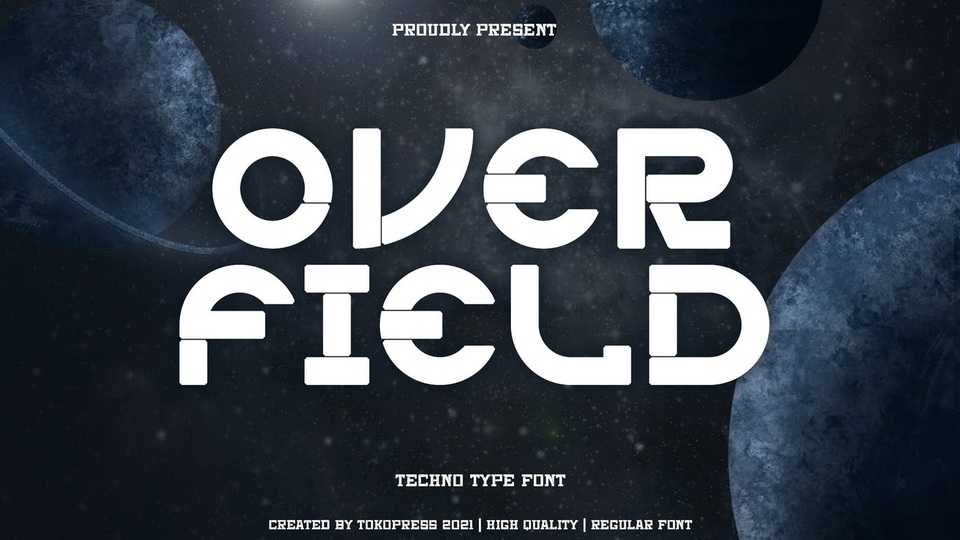
Download Overfield font, a futuristic techno typeface. Adventure awaits on the vast galaxy. Technology, robotic, and Sci-Fi is all that lies ahead of us.